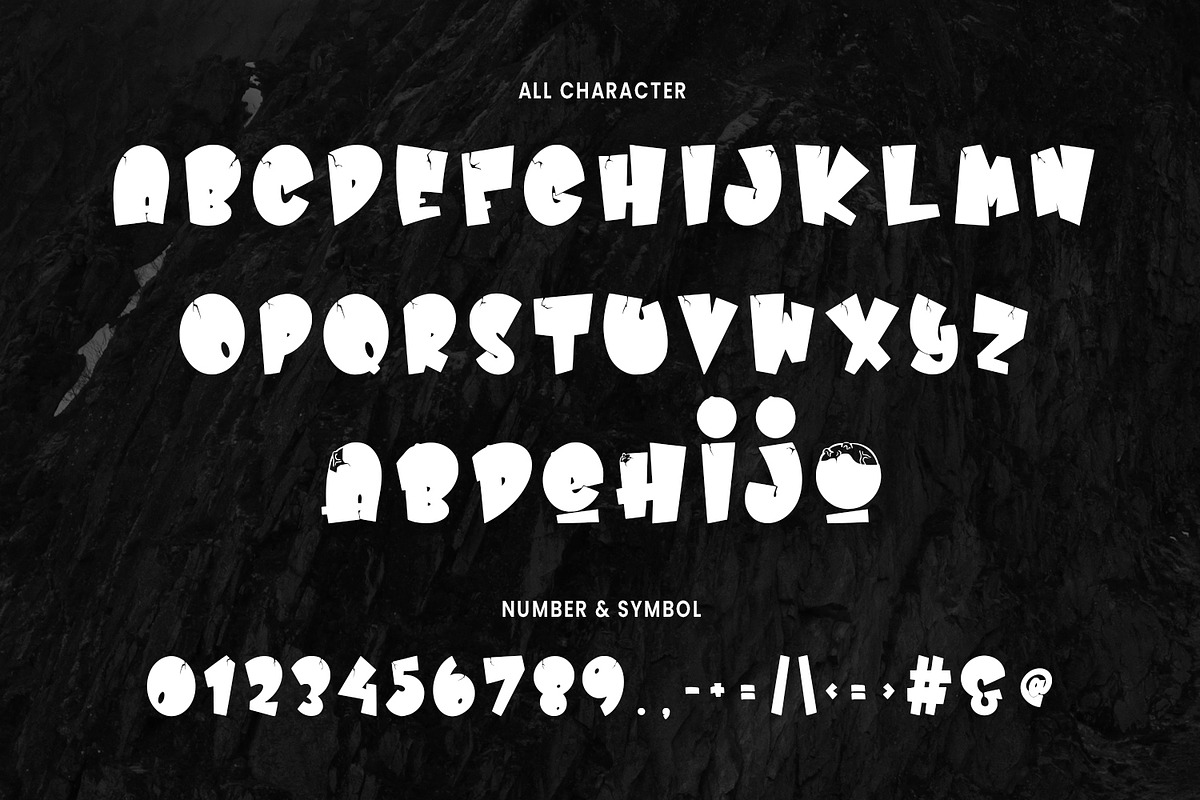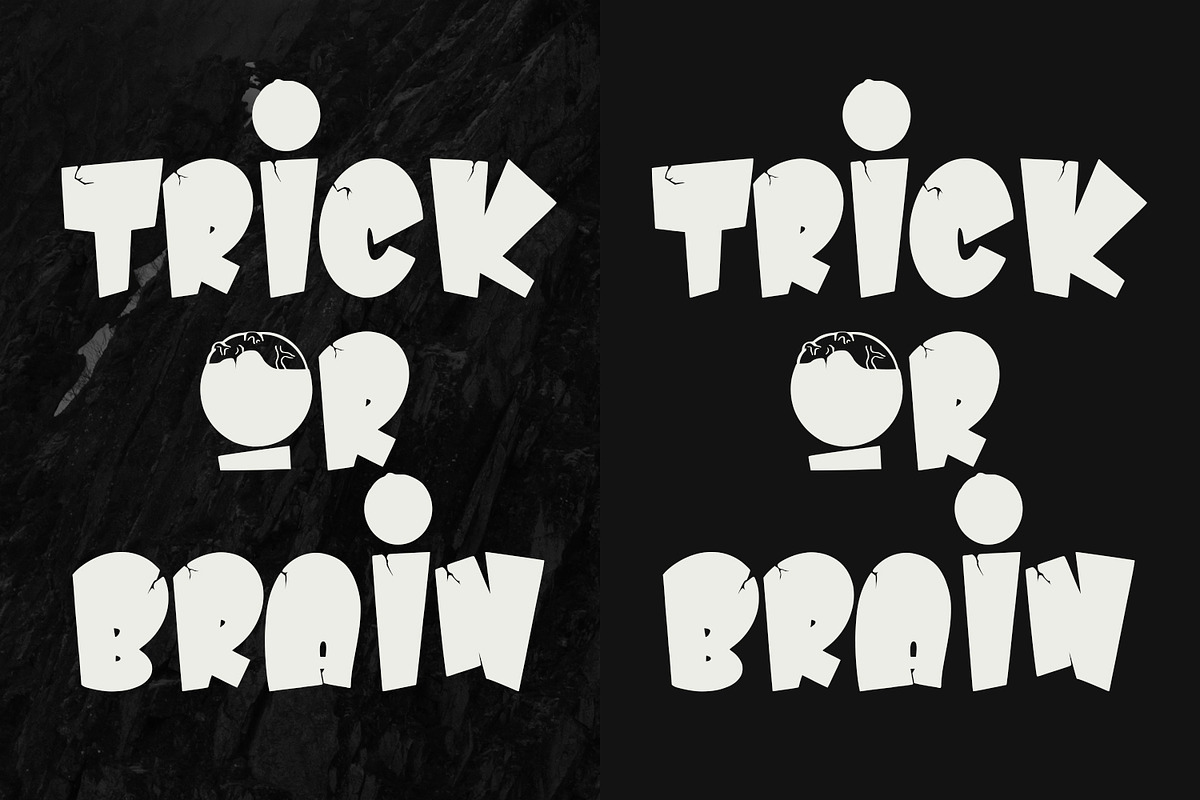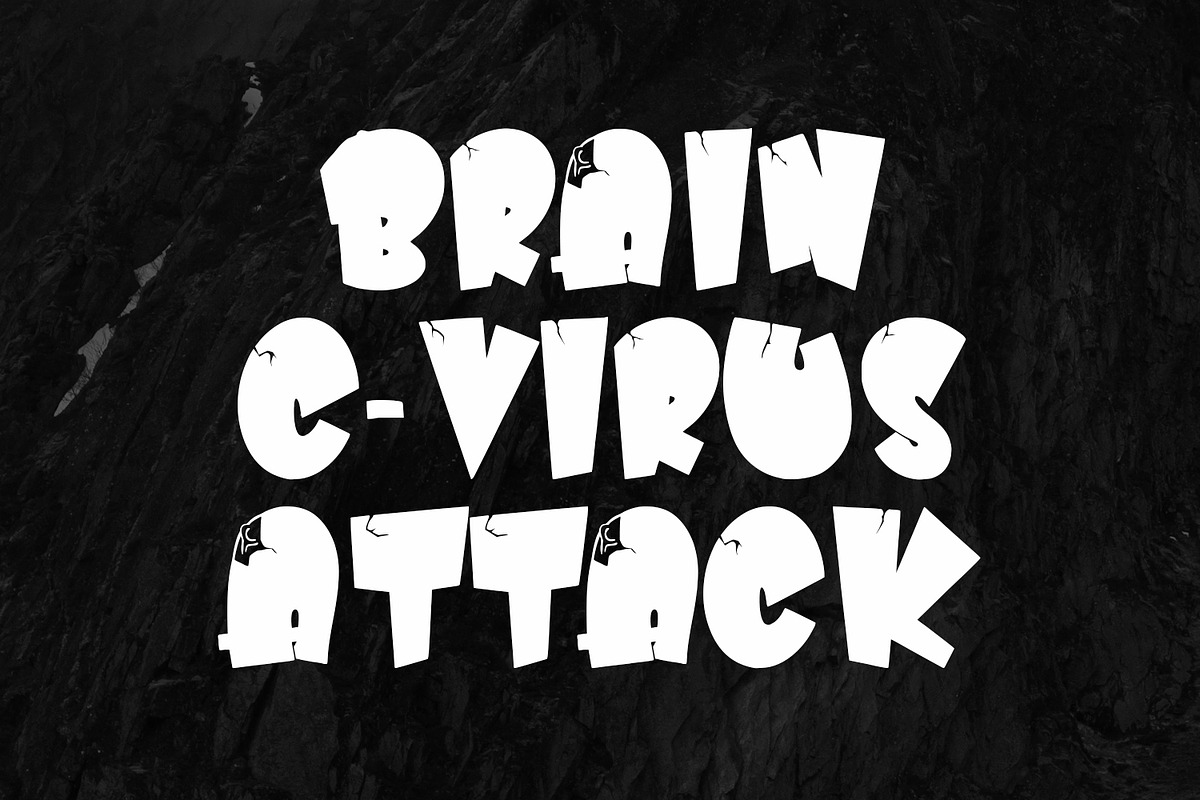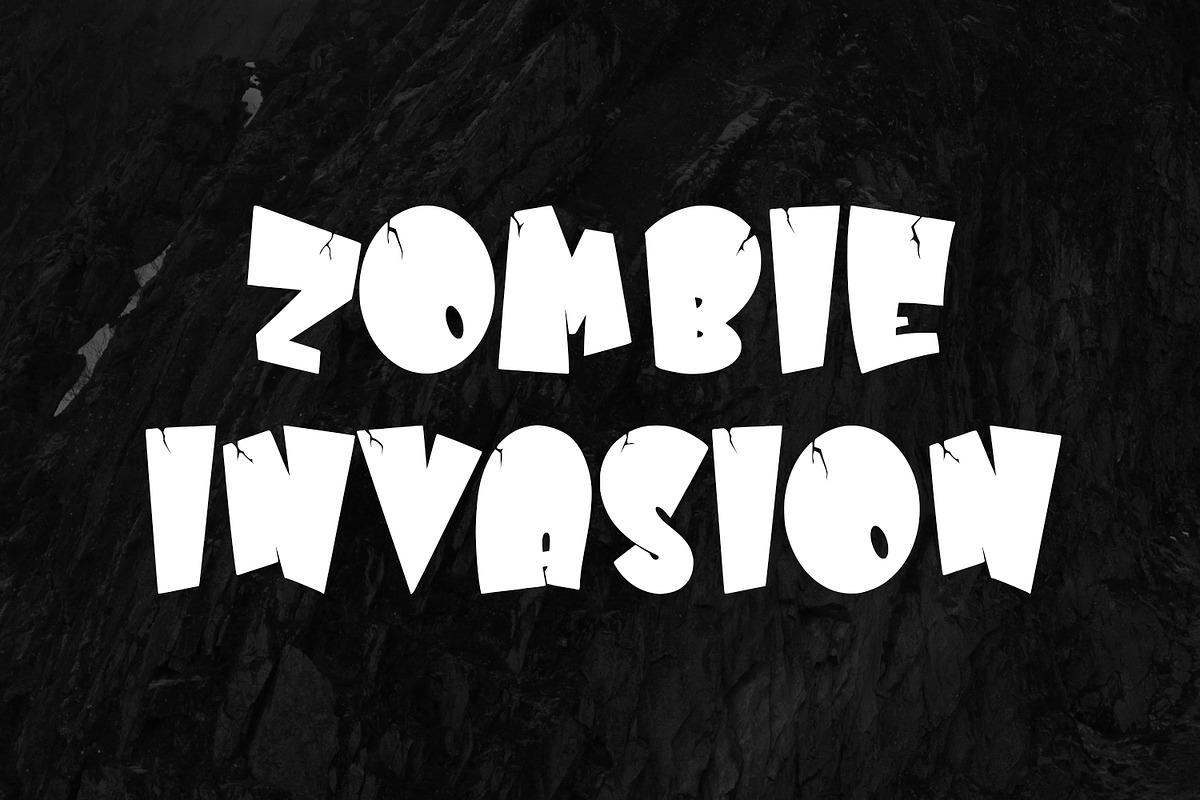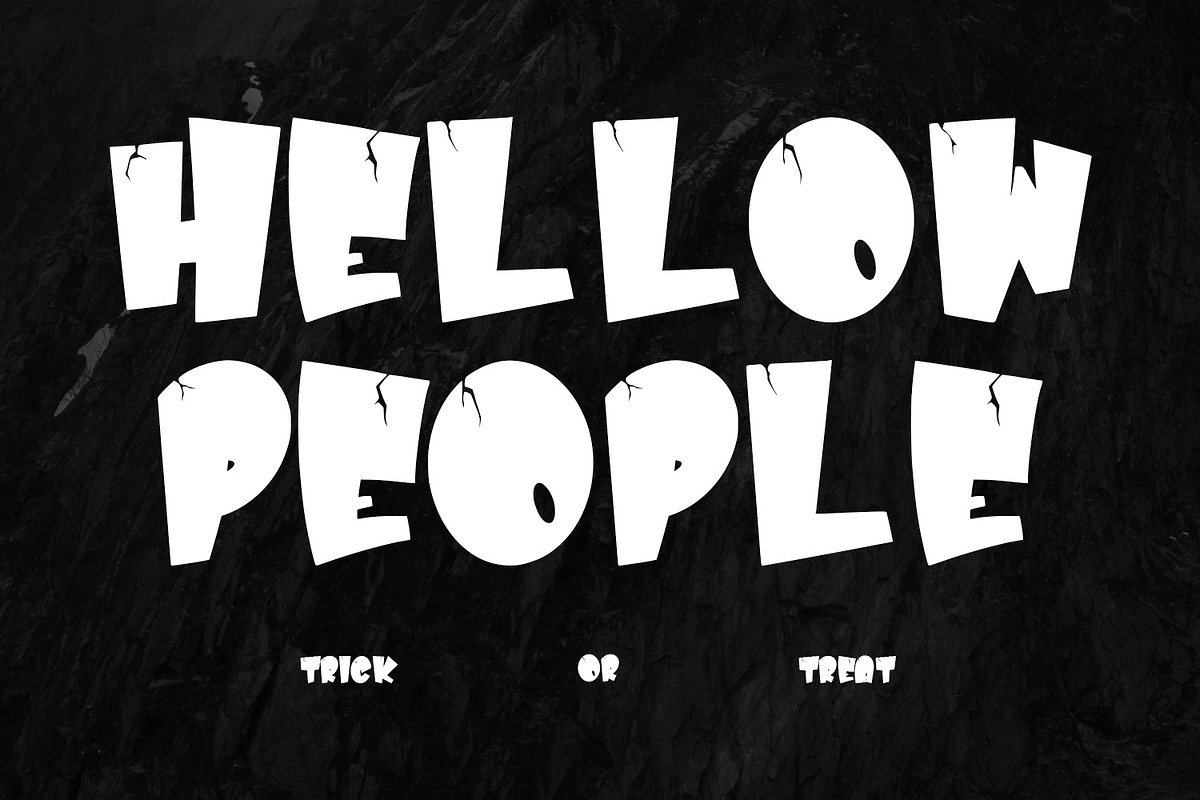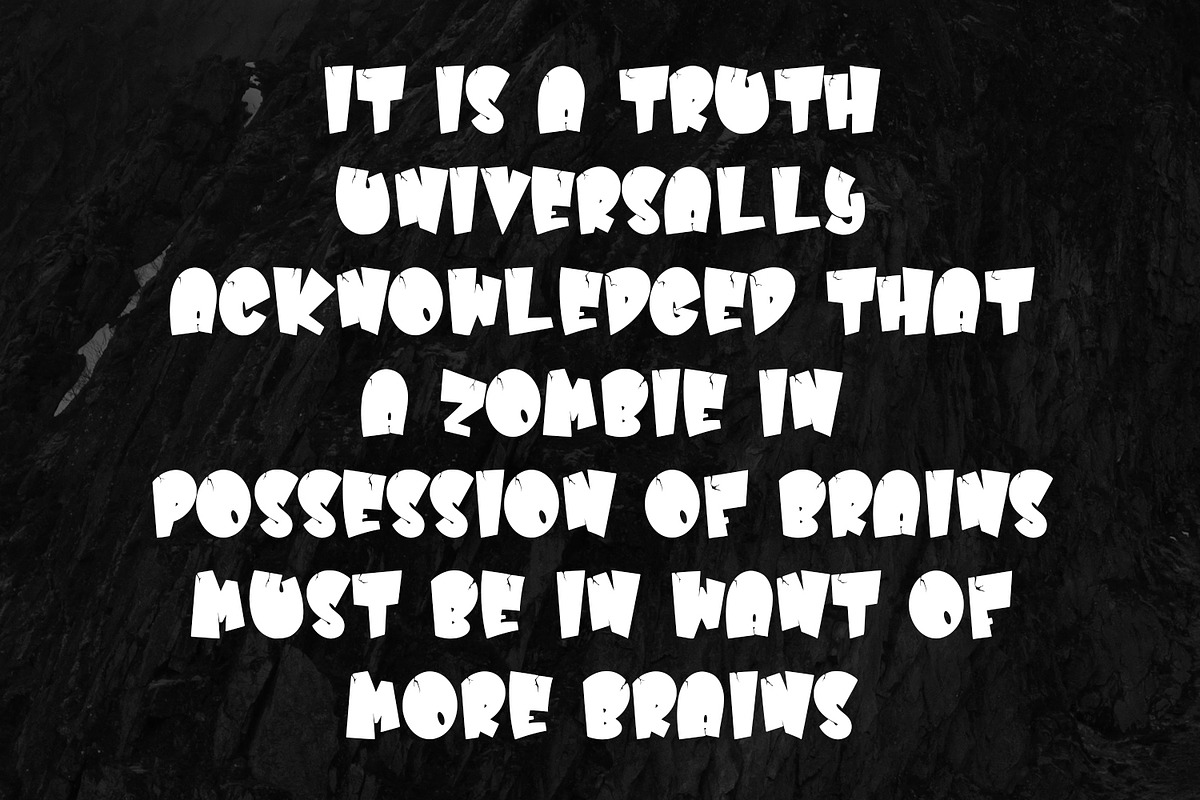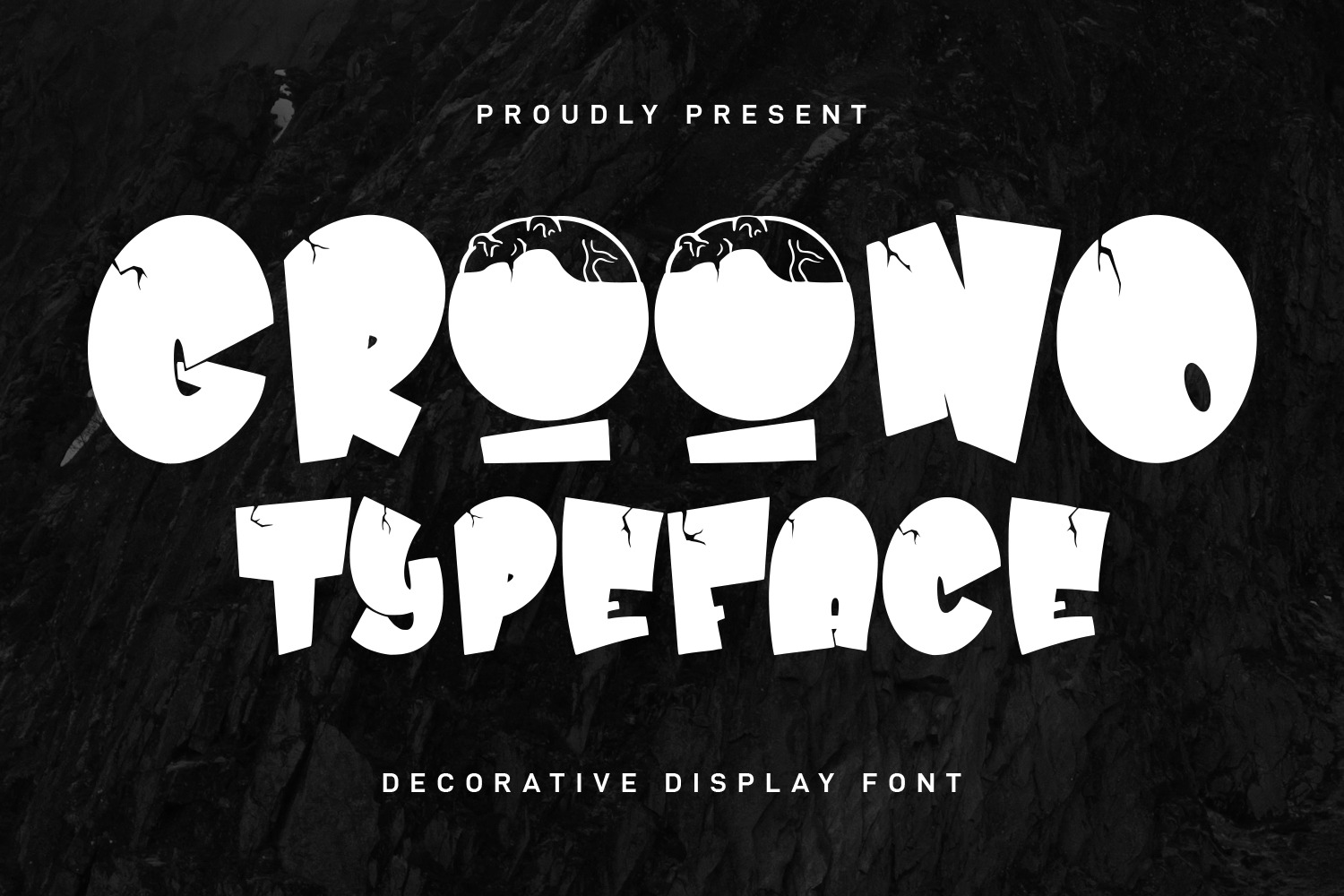
Groono Decorative Display Font
Groono decorative display font. Bold stroke, fun character with a bit of ligatures and alternates. To give you an extra creative work. Groono decorative display font support multilingual more than 100+ language. This font is good for logo design, Social media, Movie Titles, Books Titles, a short text even a long text letter and good for your secondary text font with script or serif. Make a stunning work with Groono decorative display font.